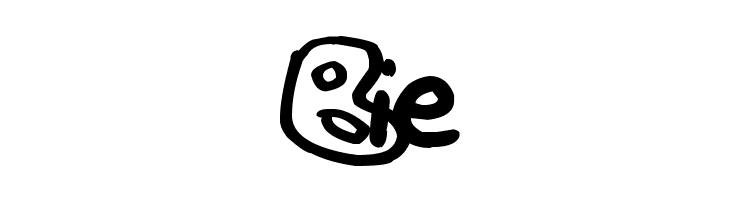
A hand-drawn, sketch-style font with playful, irregular strokes.
A playful, hand-drawn font with characters in uneven squares, ideal for creative projects.
A whimsical, playful handwritten font with dynamic strokes and a spontaneous feel.
A playful, hand-drawn font with irregular strokes and a dynamic, informal style.